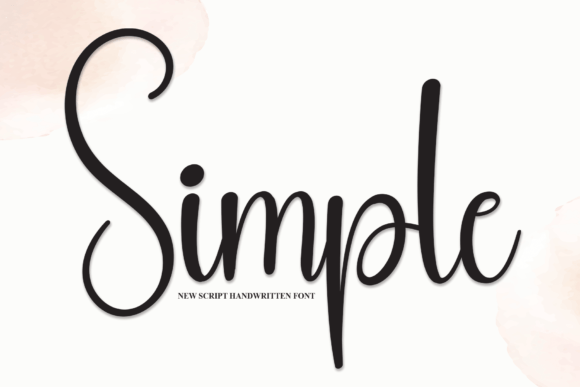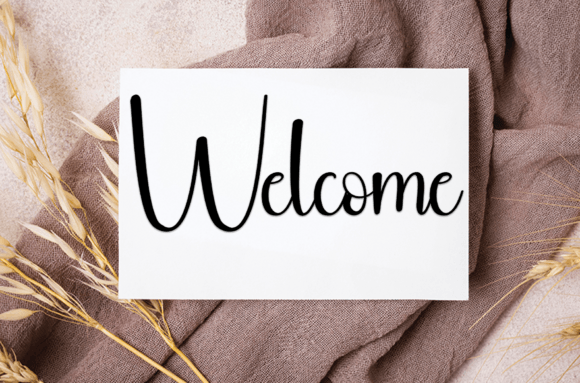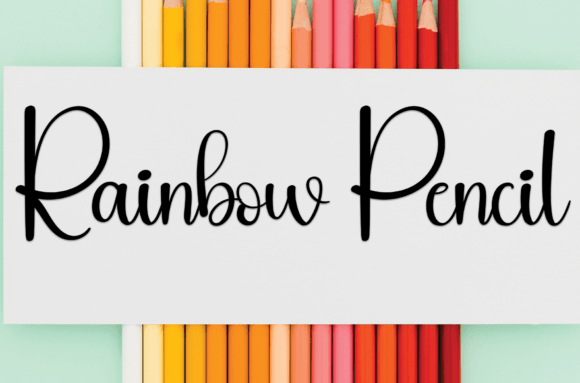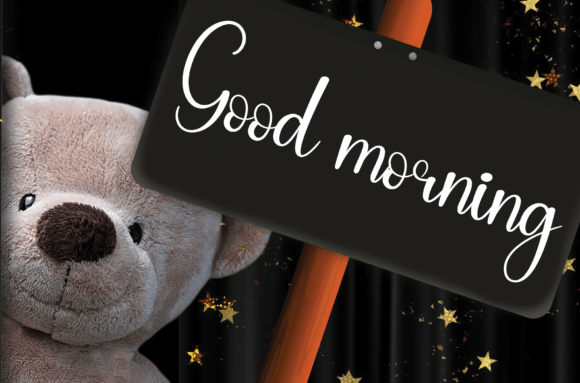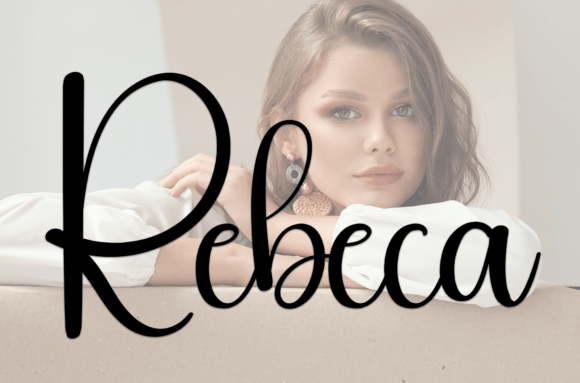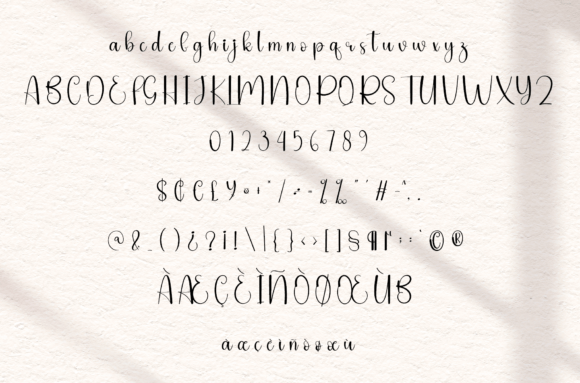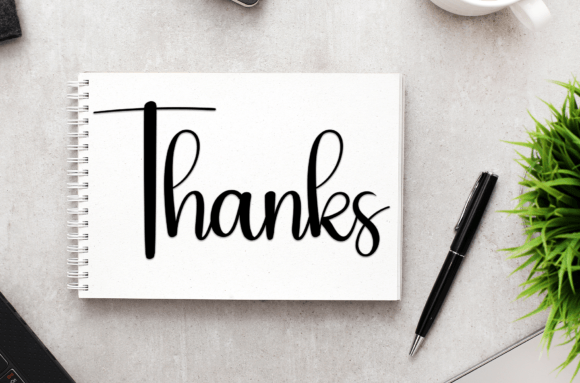
Simple Font
About Simple Font
Simple is a sweet and friendly handwritten font that brings an easygoing and warm feel to your projects. With its smooth curves and relaxed vibe, Simple is perfect for any design that needs a personal and heartfelt touch. Whether you’re creating wedding invitations, thank-you cards, or digital graphics, this font adds sincerity and style to every word.
Simple has a charming flow that feels natural, almost as if it were written by hand. Each letter is carefully shaped to deliver clarity and beauty in every line. This makes it an excellent choice for projects where you want to express emotion and authenticity. If you love fonts that feel effortless and genuine, Simple is sure to become a favorite in your collection.
Ideal for Special Events
Simple shines brightest in designs that celebrate meaningful moments. It’s especially popular for:
• Wedding Invitations: Announce your special day with grace and elegance.
• Save-the-Date Cards: Set the tone for a memorable event.
• Thank-You Notes: Show your appreciation with a personal touch.
• Birthday Cards: Add joy to every celebration.
• Baby Announcements: Share precious news in a warm, friendly style.
With Simple, your messages always feel sincere and inviting.
Versatile for All Creative Projects
Simple isn’t limited to just invitations and cards. This font is also perfect for:
• Logos and Branding: Build a relaxed, approachable brand image.
• Social Media Graphics: Make posts feel personal and engaging.
• Product Packaging: Add a handmade look to labels and tags.
• Printables: Create planners, stickers, and wall art that stand out.
• Crafting: Ideal for Cricut, Silhouette, and other cutting machines.
No matter where you use it, Simple will elevate your designs with its friendly charm.
Why Designers Love Simple Font
Here’s why Simple is such a popular choice:
• Genuine Feel: Looks just like natural handwriting.
• Easy Readability: Clear, smooth letters at any size.
• Timeless Appeal: Fits classic, modern, and playful designs.
• Endless Versatility: Perfect for print, web, and crafts.
• Warm Personality: Adds a friendly, relaxed vibe.
Creative Ideas for Simple
Get inspired with these creative tips:
1. Mix with Sans-Serif Fonts: Create balance and contrast.
2. Use Soft Colors: Pastels and neutrals highlight its charm.
3. Pair with Illustrations: Add hand-drawn florals or icons.
4. Leave Room: Give text plenty of breathing space.
5. Highlight Names or Phrases: Use larger sizes for emphasis.